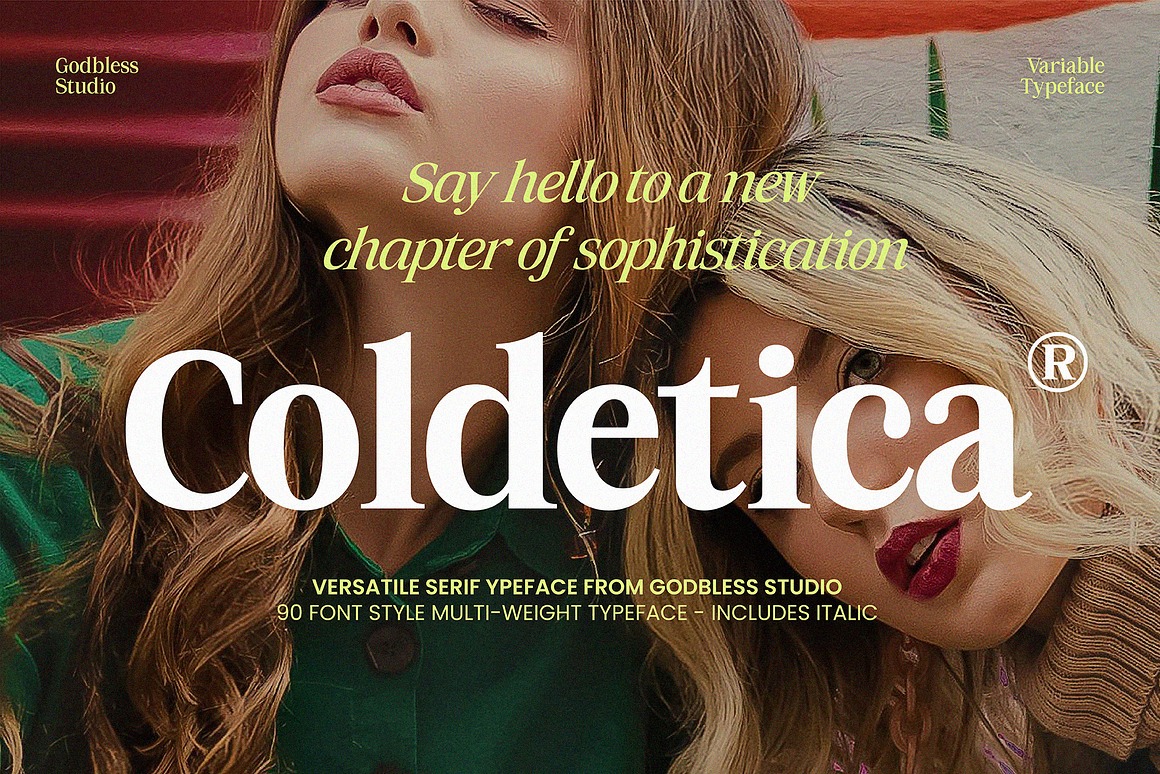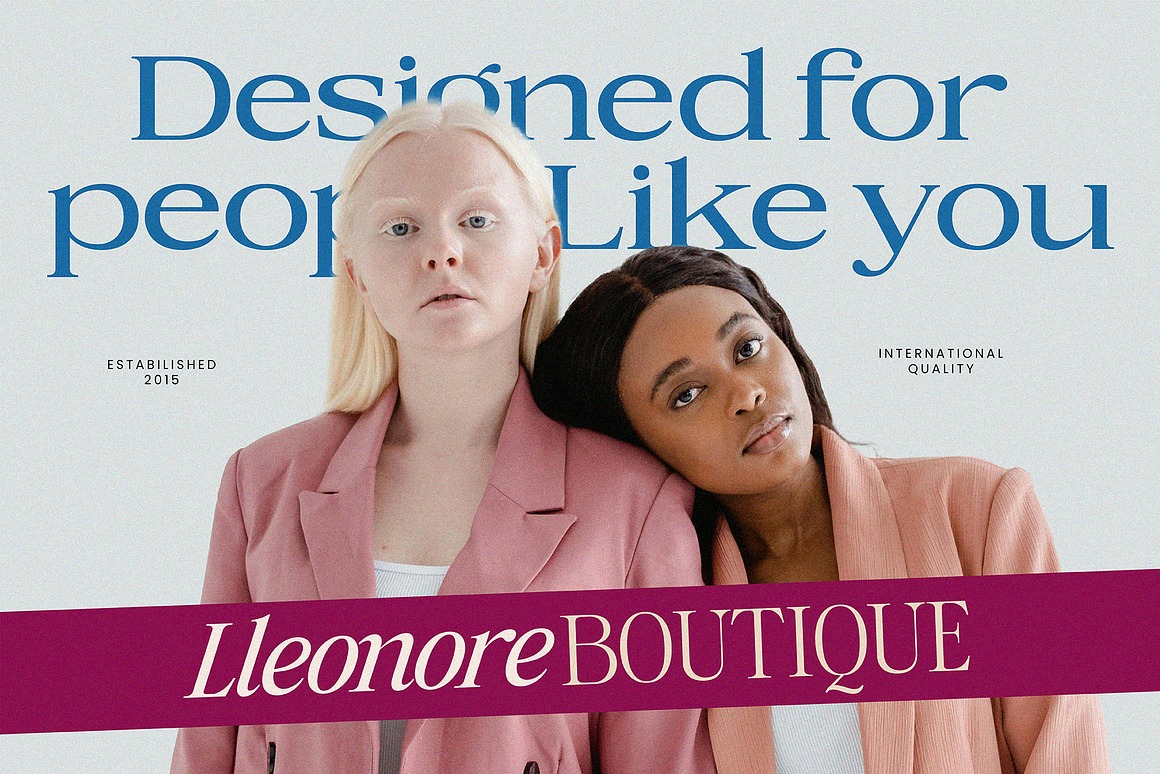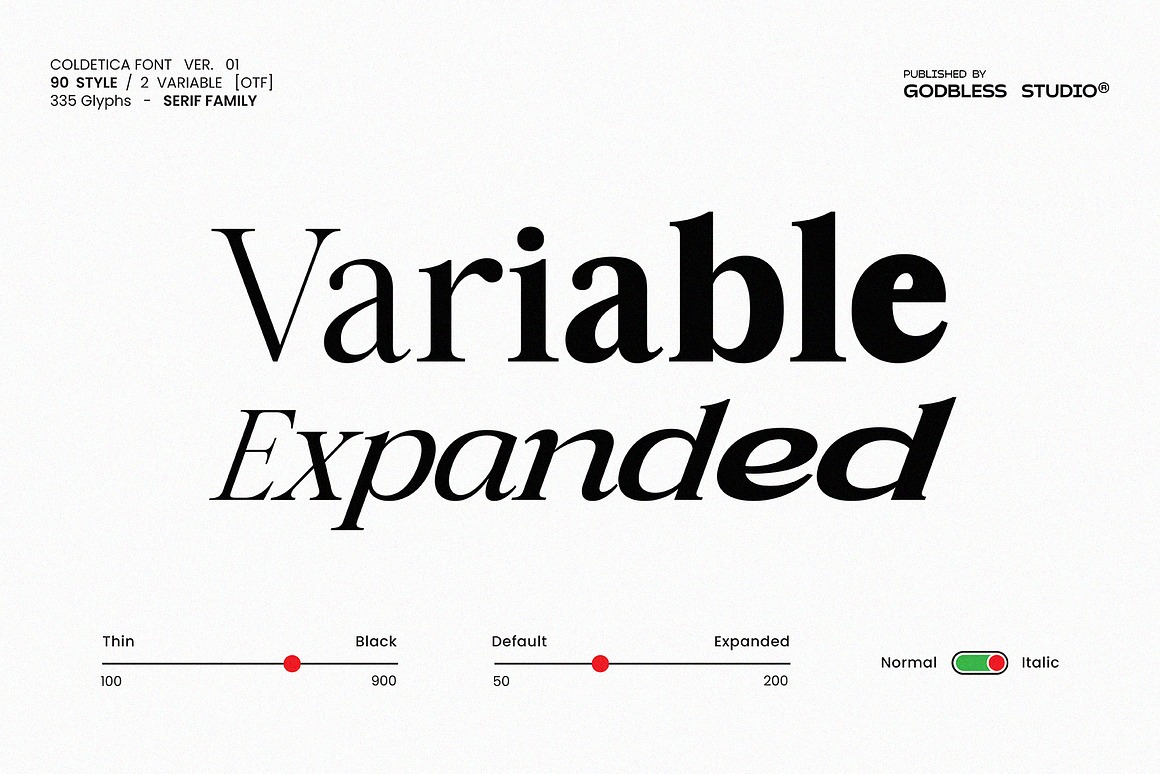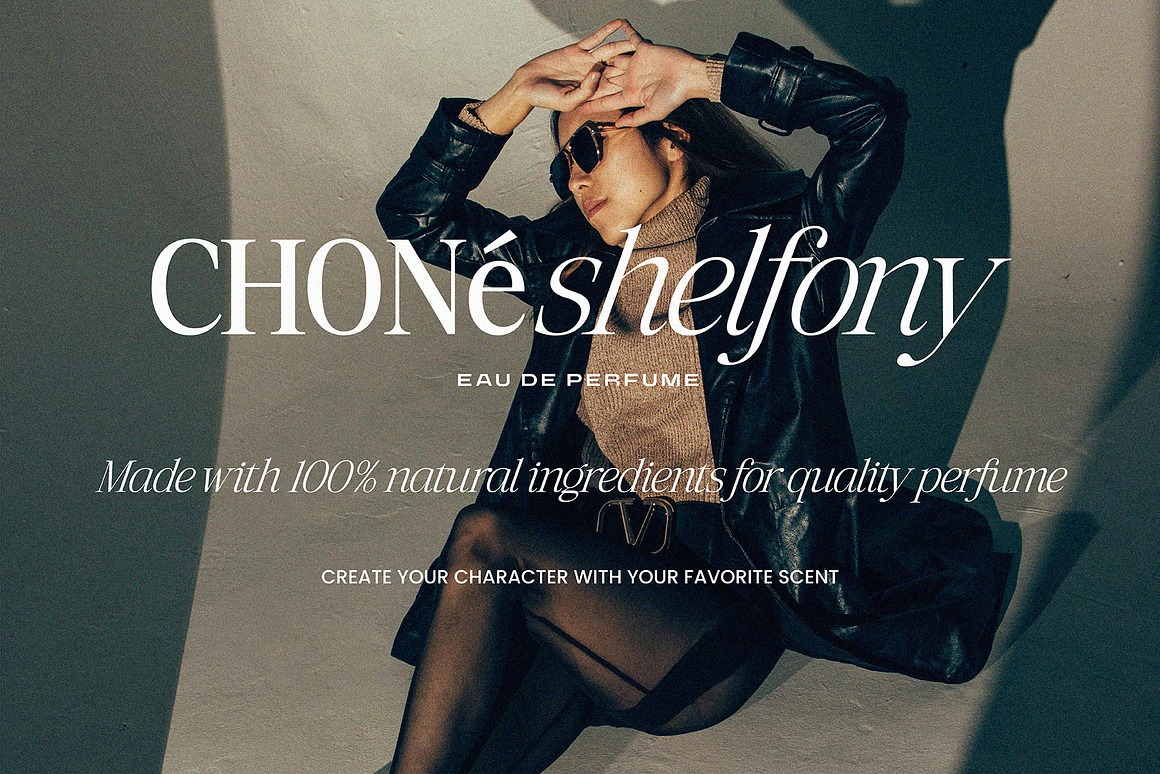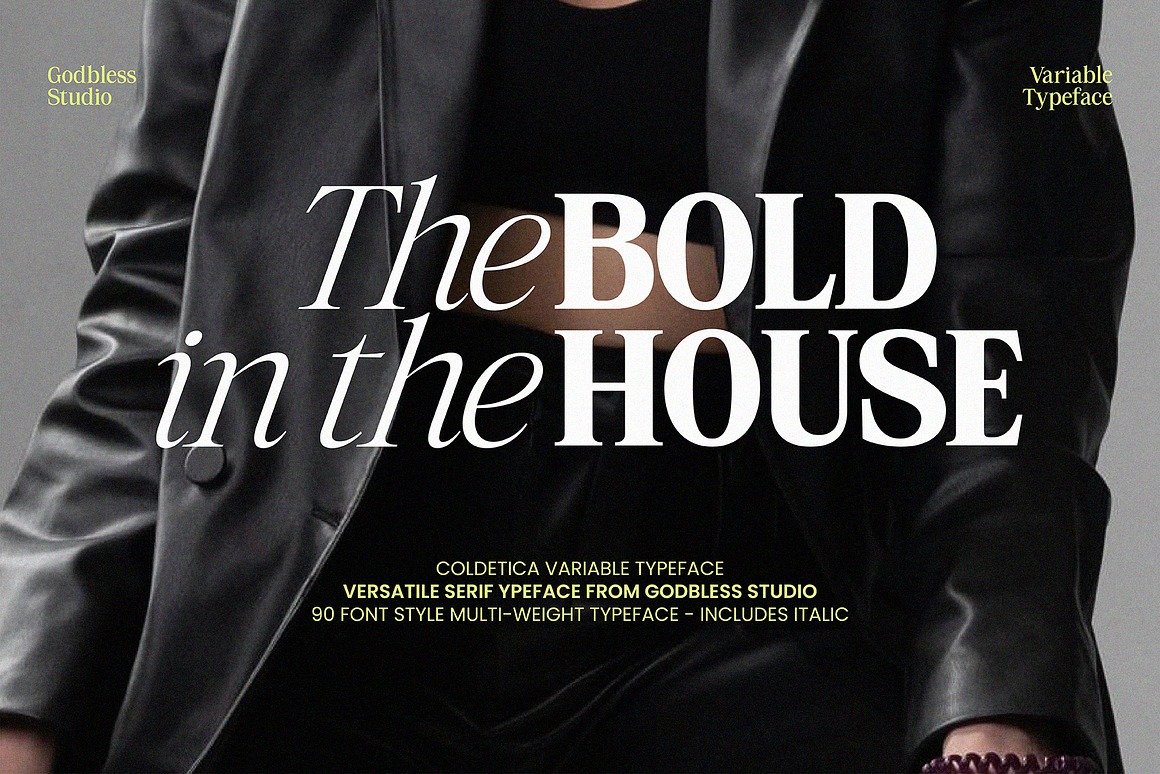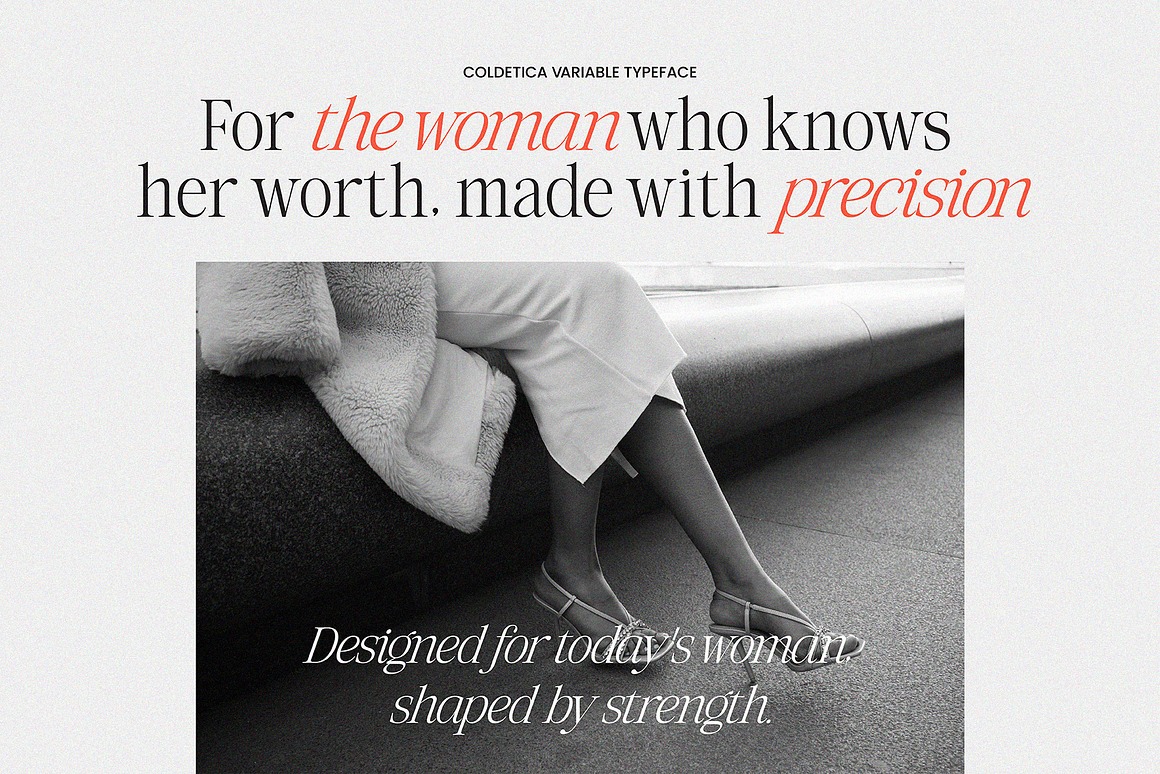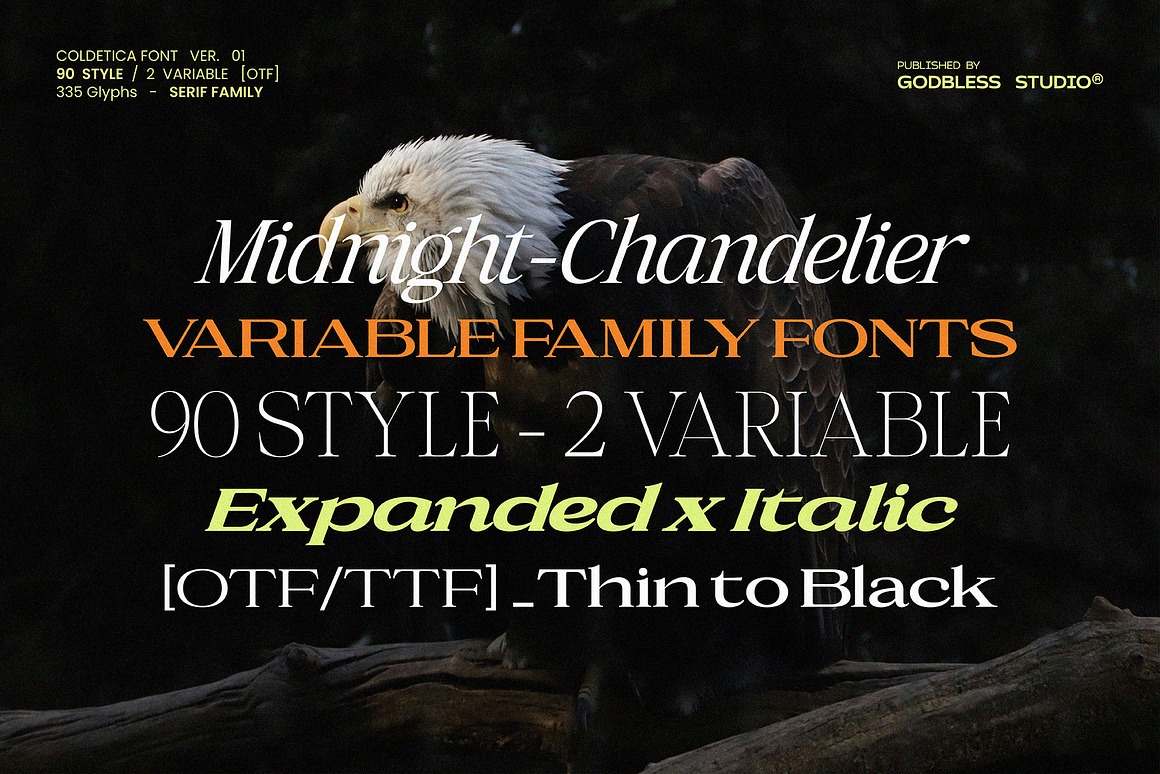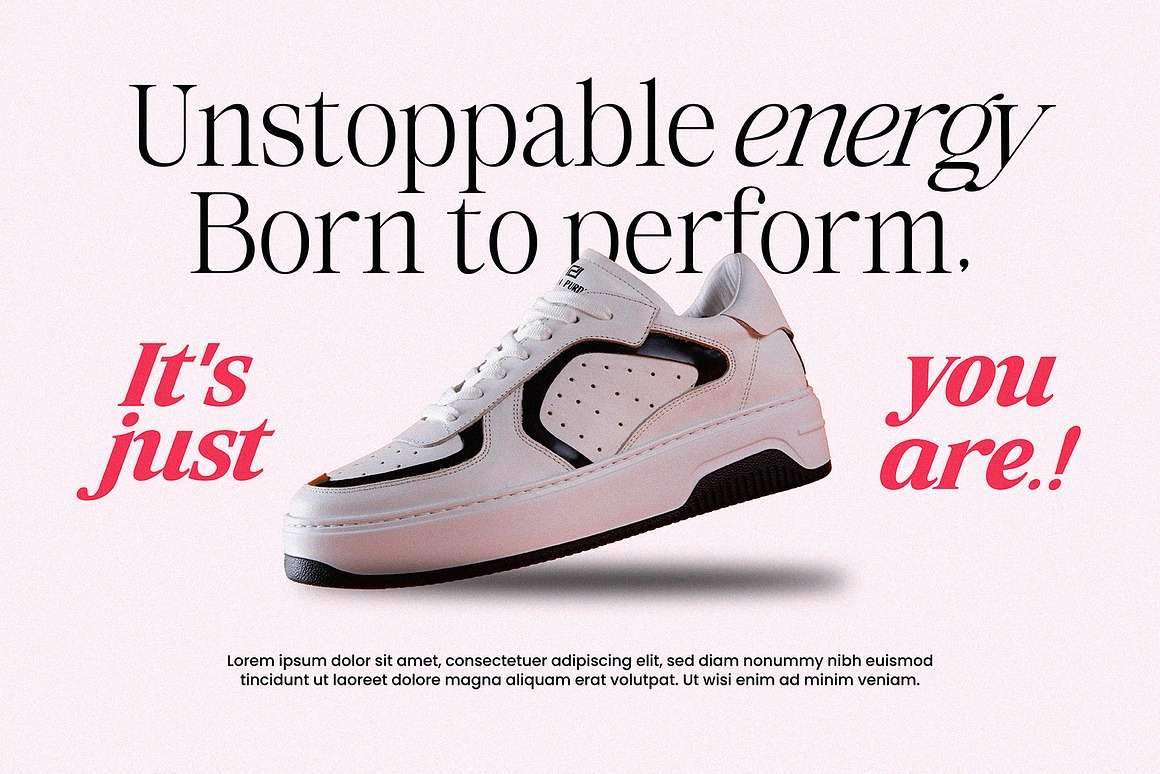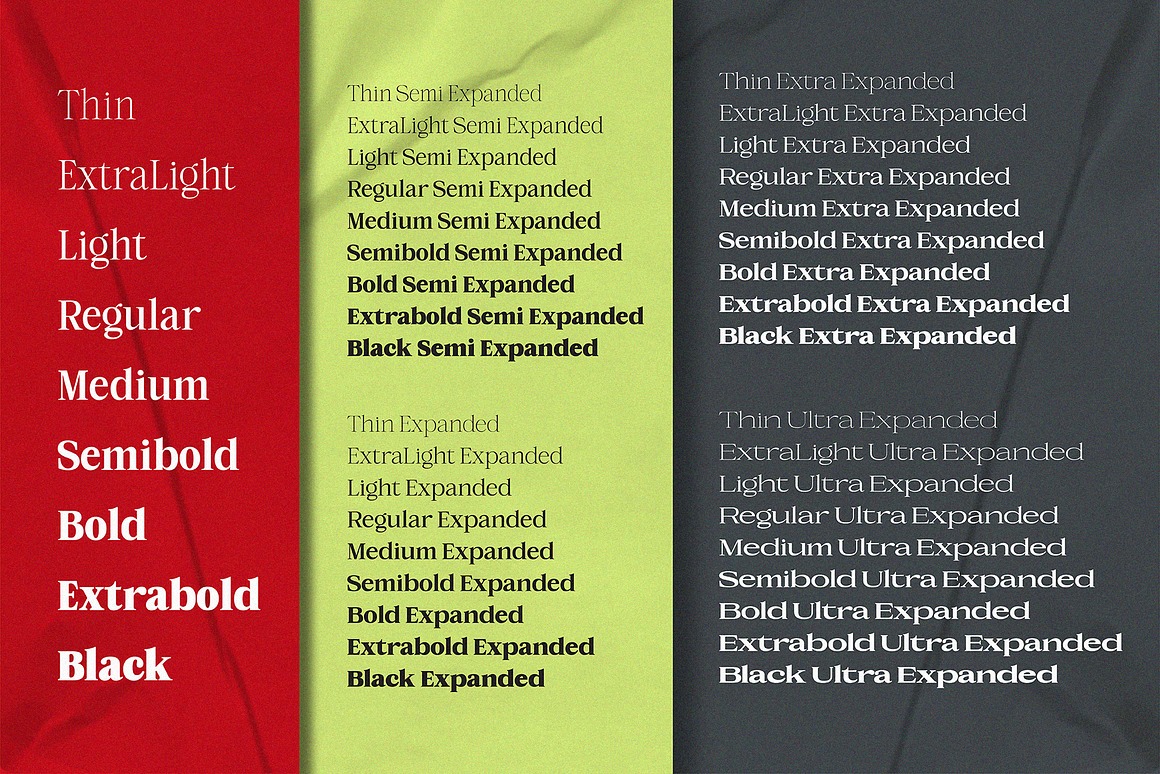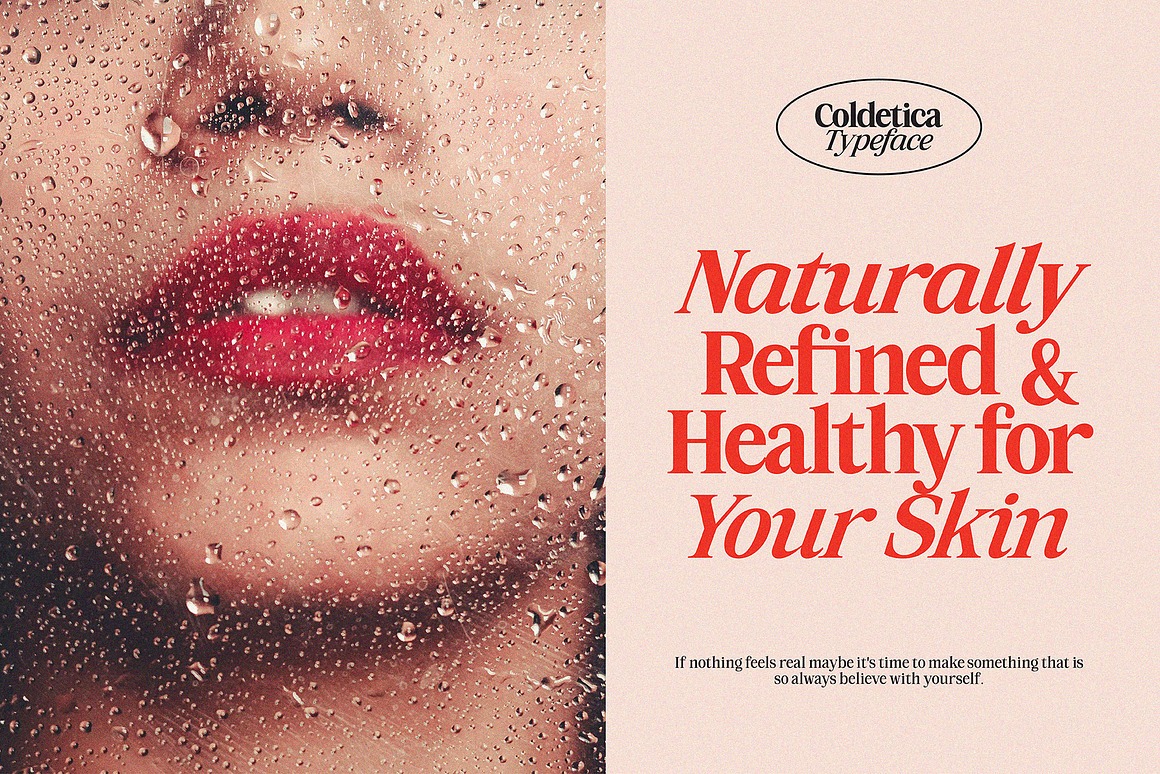
Coldetica Serif Variable Typeface
Meet the Variable Serif Family — where elegance meets bold personality. Crafted for designers who blur the line between classic and contemporary, this collection includes 45 upright and 45 italic fonts, plus two variable files that give you complete control over every nuance. Alongside its refined proportions, the family also features an expanded style, giving you extra freedom to explore wider layouts and stronger visual statements.
Coldetica Serif Variable Typeface from Godbless Studio contains typeface with 90 styles for your new modern or futuristic projects! Don’t miss this trendy & sharp style branding font set 😉
• typeface with 90 styles for your new modern or futuristic projects!
• Multilingual – Alternates – Ligatures
Typeface with 90 styles for your new modern or futuristic projects!
Packed with stylistic alternates, discretionary ligatures, and advanced OpenType features, this font family adapts beautifully to anything—from luxury branding and editorial headlines to expressive modern visuals. It’s elegant, flexible, and ready to bring attitude and grace into every design.